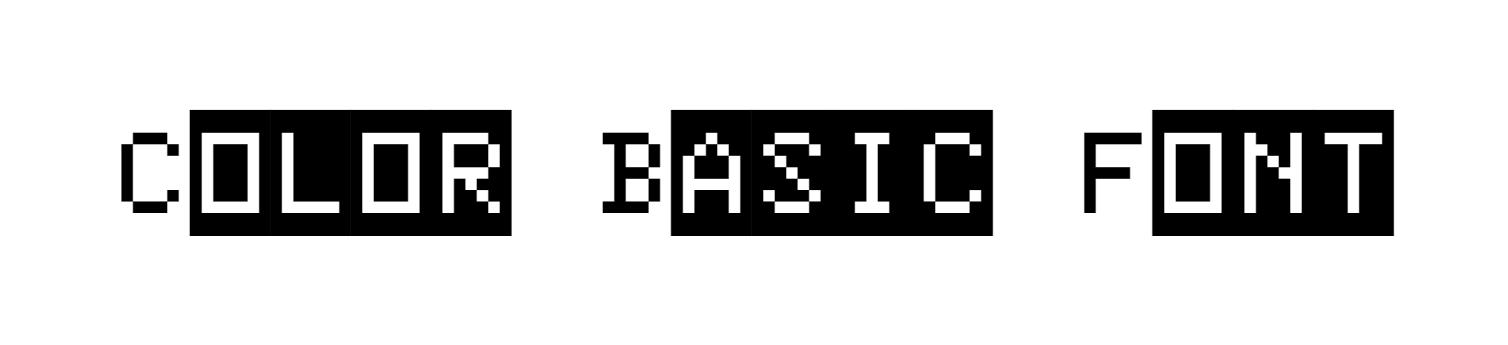
Color Basic
Color Basic is a fancy font made by Ray Larabie (2022). Bold and full of character, it's built to stand out rather than blend in. You can download it for free and test it with your own words in the preview above.
- Designer: Ray Larabie
What You Can Type With Color Basic
Color Basic covers the full alphabet in upper and lowercase, plus all ten numbers, so you can set names, dates and prices without switching fonts. Common punctuation such as &, !, ? and @ is included as well. It also has the accented letters you need for Spanish, French, German, Portuguese and Italian.
Where Color Basic Works Best
Think of Color Basic for posters, logos and eye-catching headlines. The file has no kerning data, so in logos and big titles check pairs like AV, To and Wa and tighten the spacing by hand. Use it for one standout word or headline and let simpler fonts handle the rest.
Does Color Basic support accented letters?
Yes. Color Basic includes the accented letters needed for Spanish, French, German, Portuguese and Italian, so it works for more than just English.